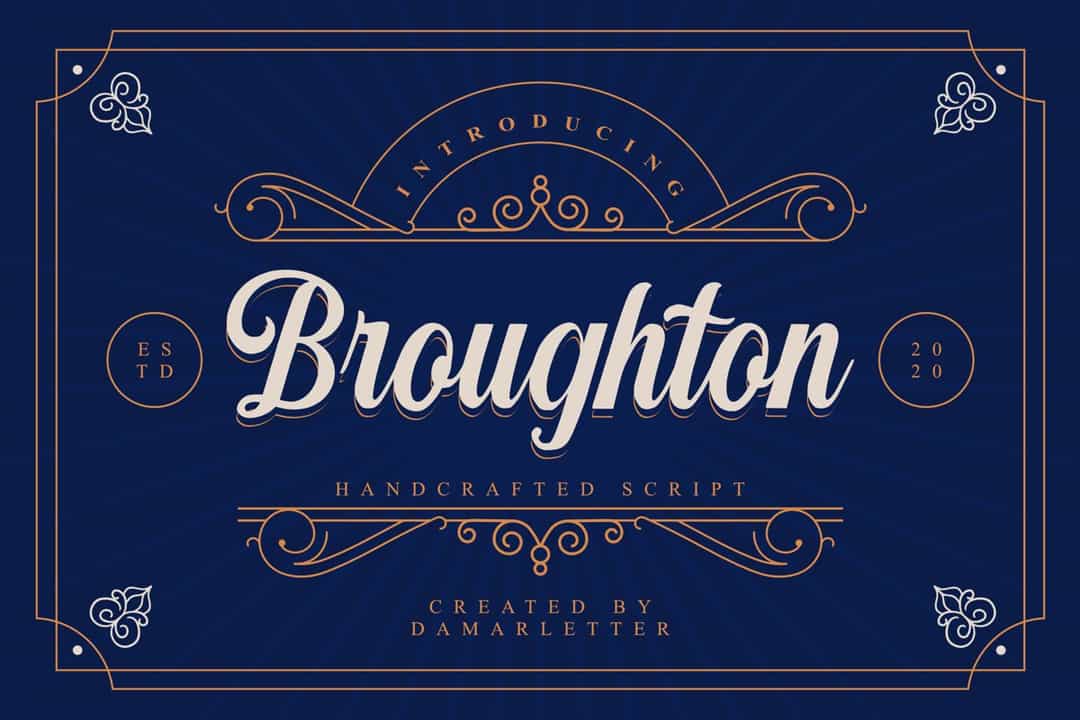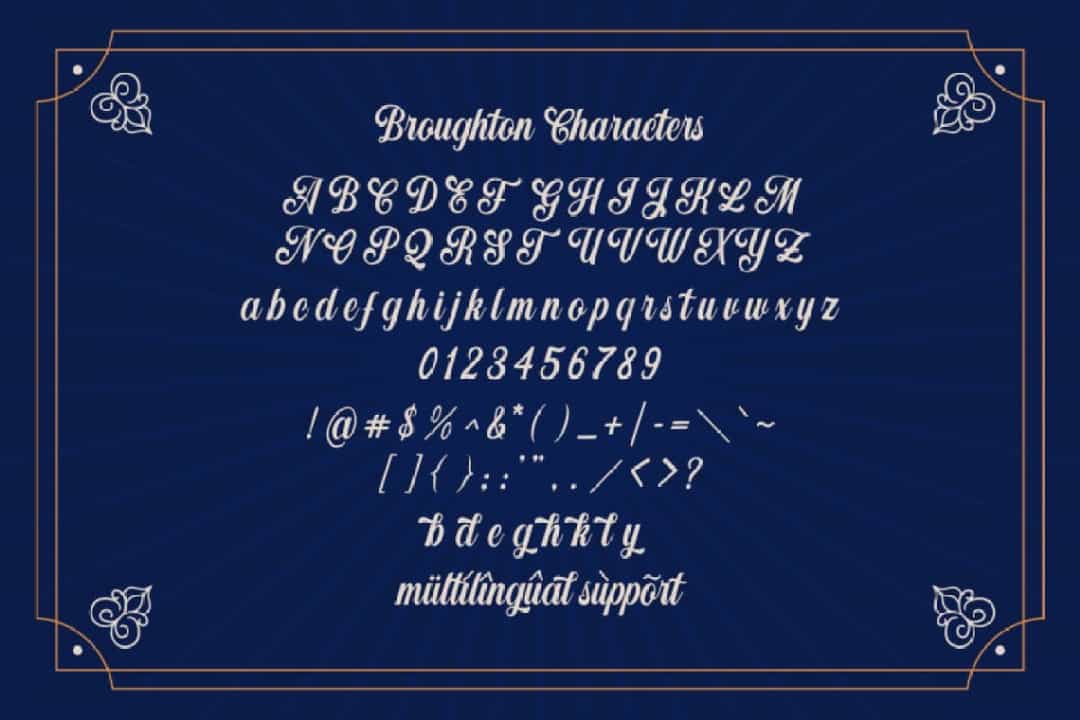
The font used in Broughton is an elegant handwritten font which gives the design a touch of sophistication, elegance and sophistication with its lovely appearance. This font was intended to mimic the handwritten lettering as closely as possible and to this end, the designers have included 9 ligatures into the font.